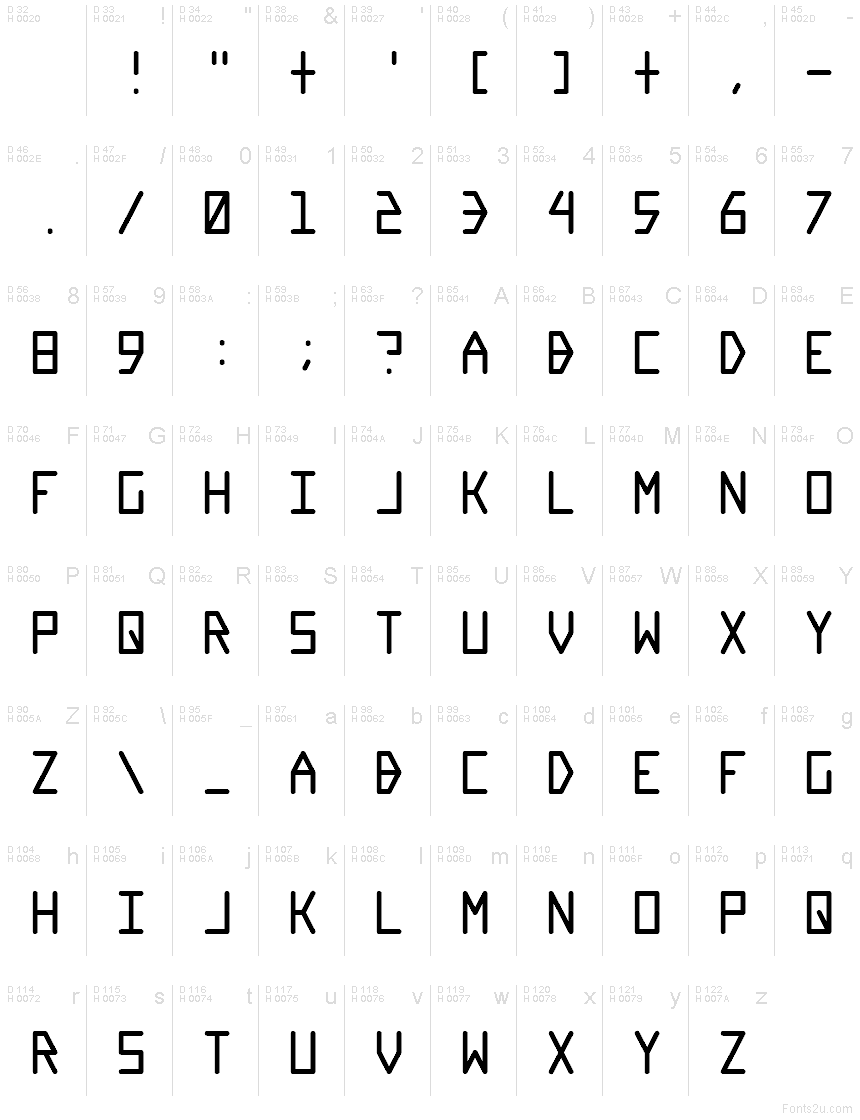
TC Shifter
TC Shifter font by Type City Font Co. is a free techno display typeface that turns every word into a sleek piece of circuitry. Its tall, narrow letters, rounded corners, and steady mono-like strokes create a clean, futuristic rhythm that feels both mechanical and friendly. The subtle squarish bends and open shapes give it a digital, grid-based flavor without feeling cold or rigid.
Using TC Shifter, titles and wordmarks lock together like components on a circuit board, great for sci-fi posters, gaming logos, UI mockups, app interfaces, and tech event branding. This free font shines at larger sizes where its precise geometry and smooth curves can really breathe. Pair TC Shifter with a simple, understated sans serif for body copy to keep your layouts sharp and readable.
Based on the font on the weird words in the MilkDrop preset "shifter - a thousand monkeys_phat_edit (subliminal mix)"